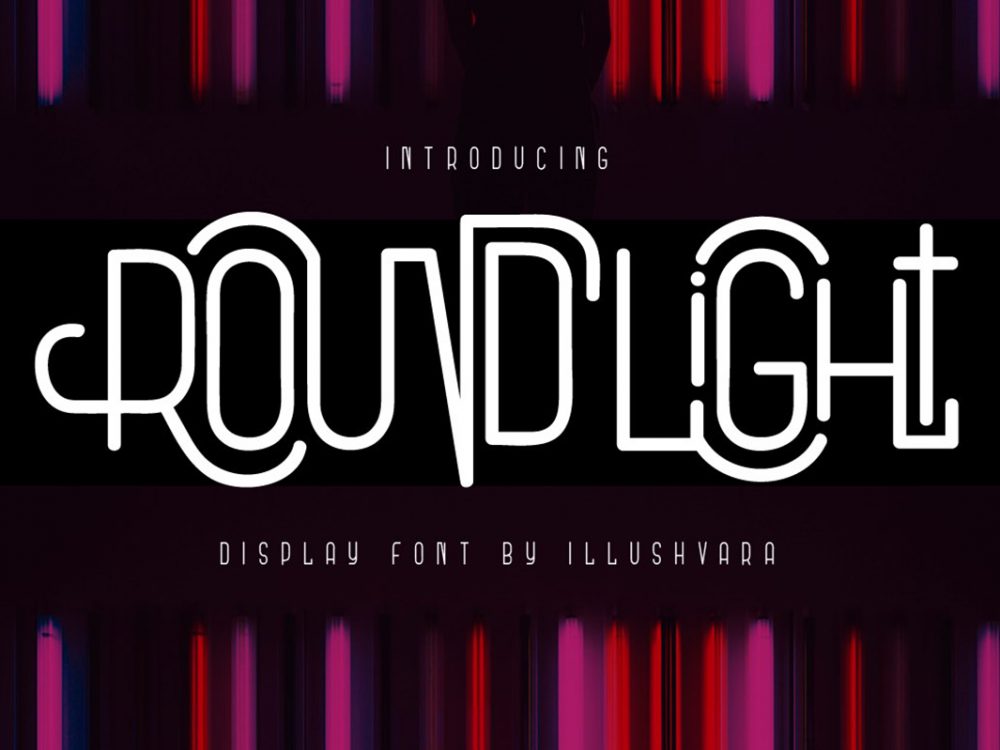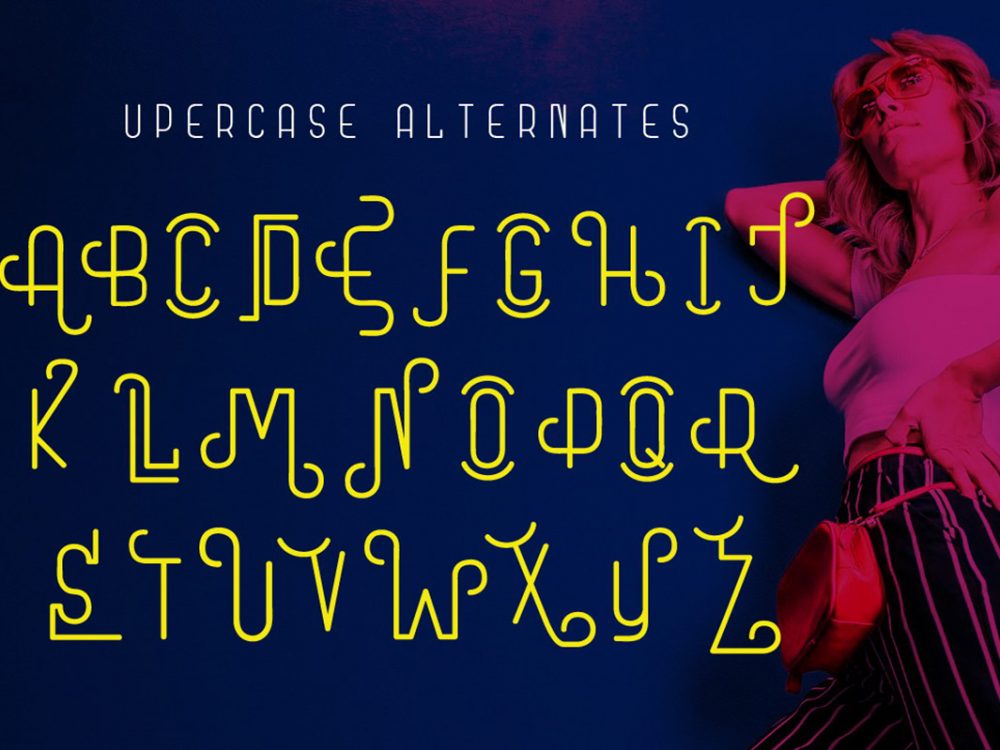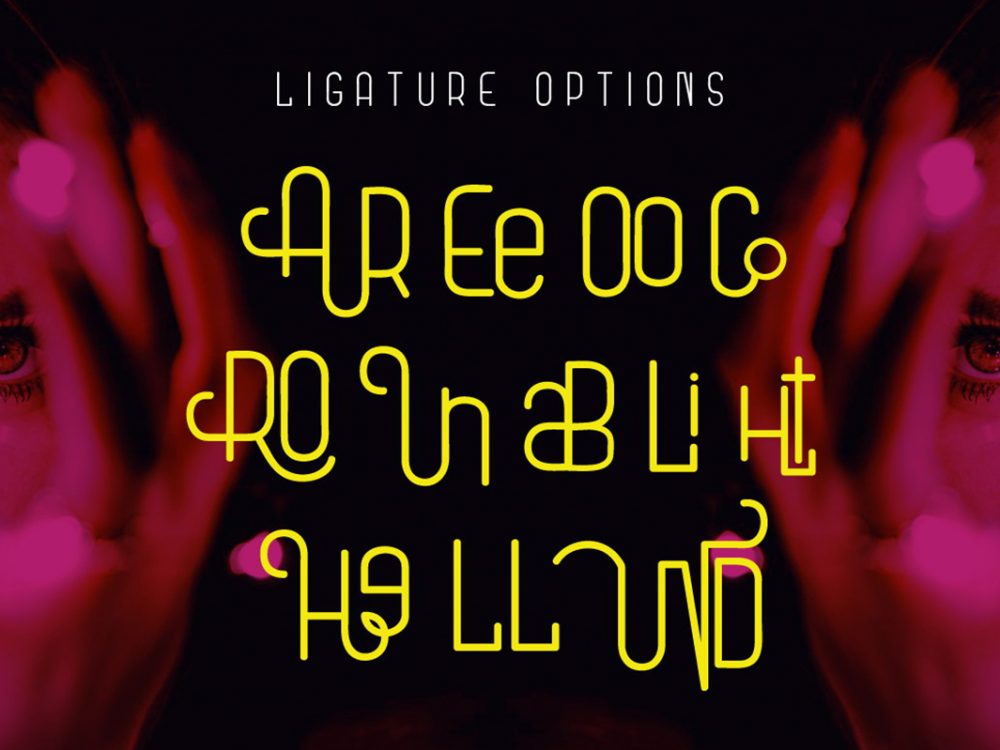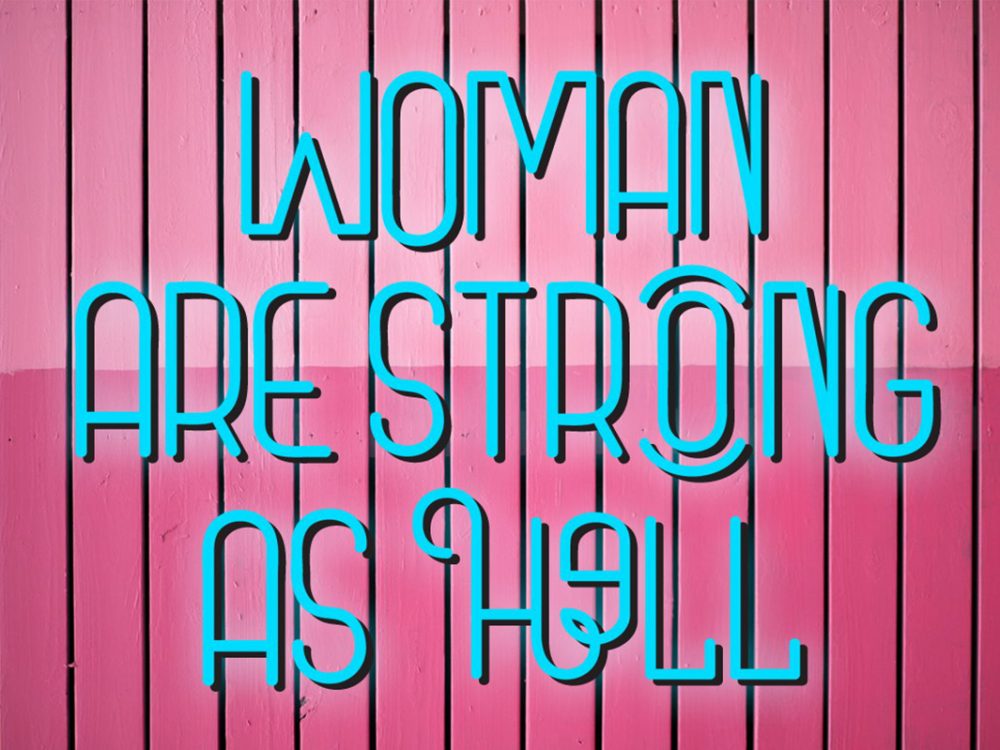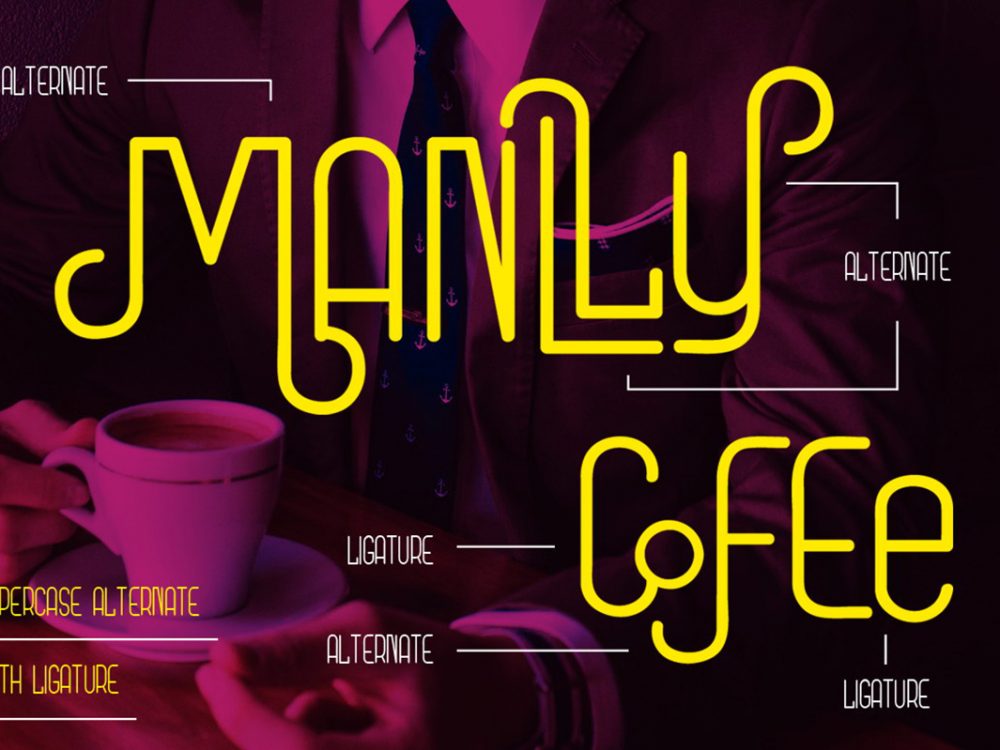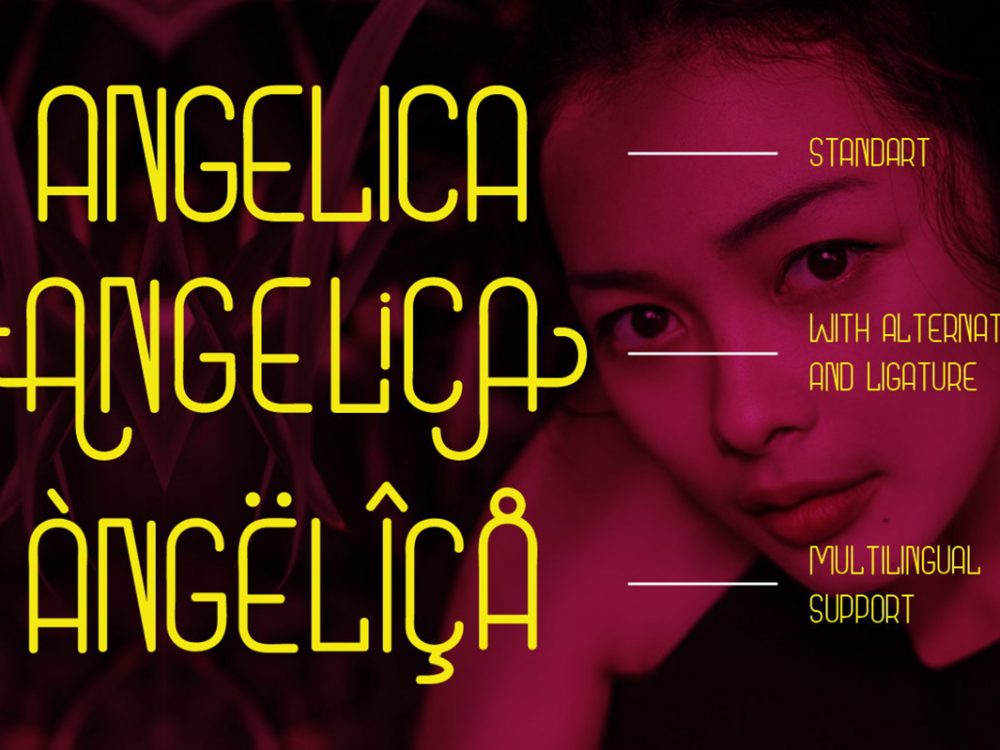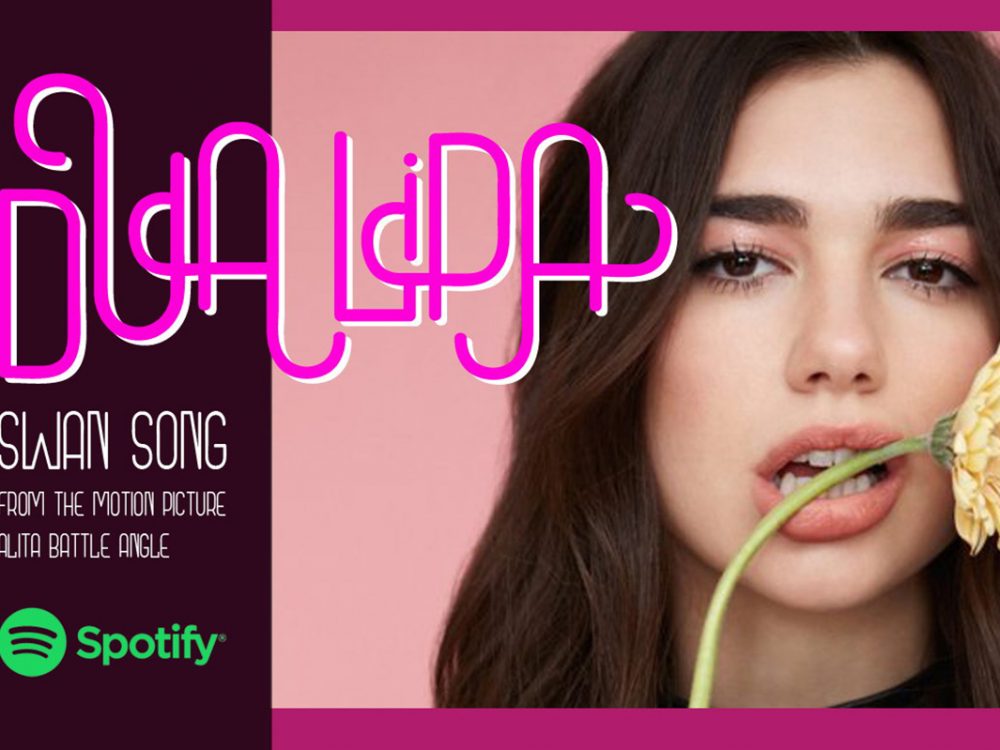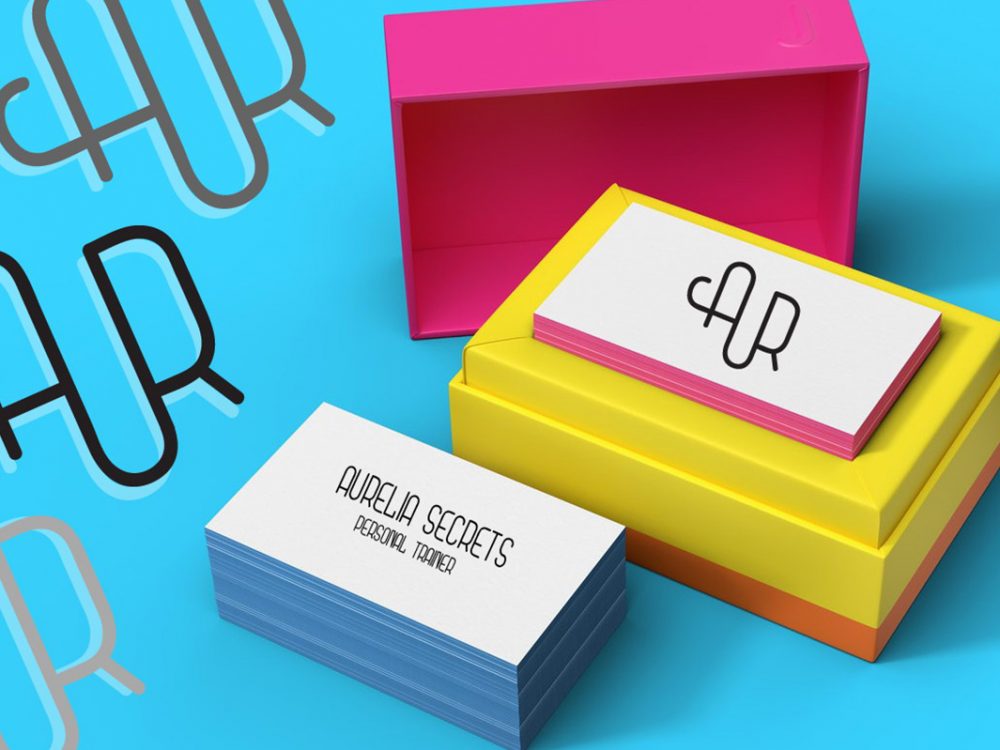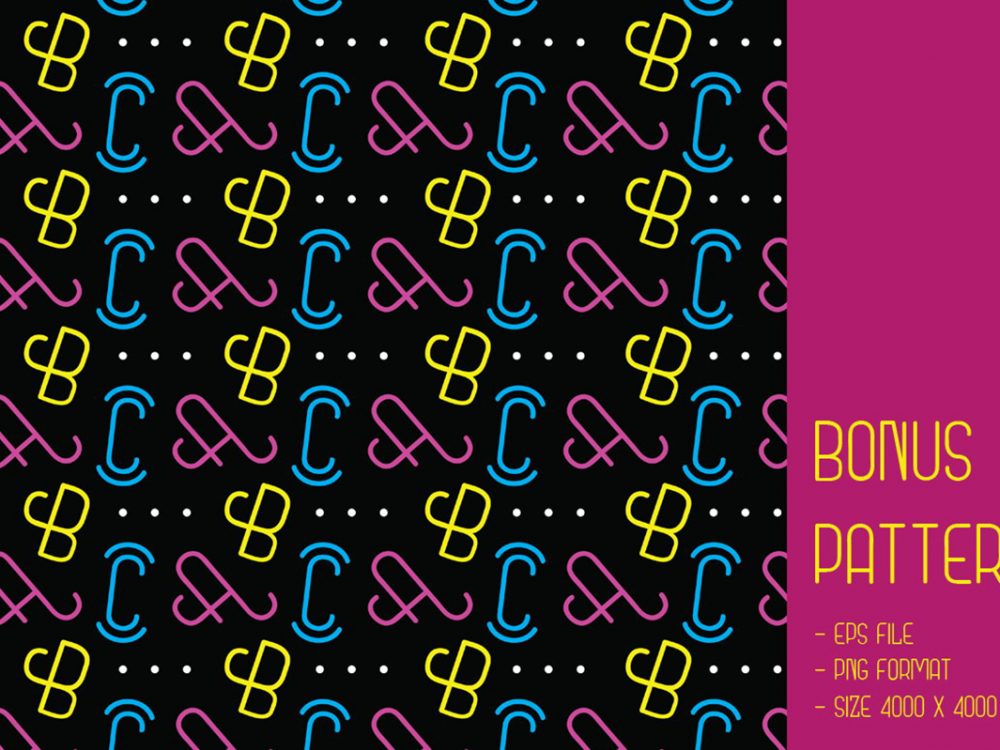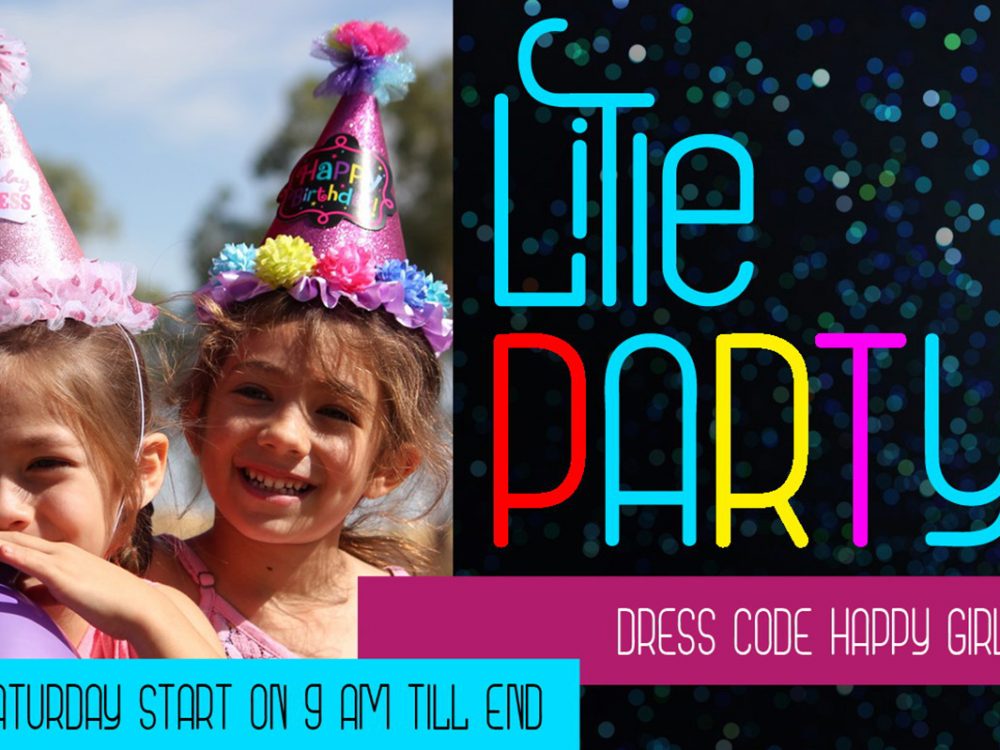
Round Light Font
Round Light Font is a beautiful bright unusual font inspired by neon lights. This font is very suitable for various abstract design projects. These can be posters, cards, invitations, flyers, prints, and much more. This demo-font is free for personal use only. If you want to use it for commercial projects contact the author.